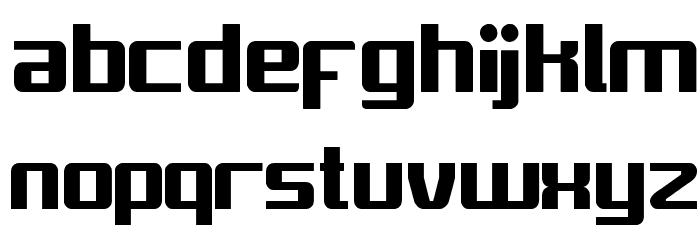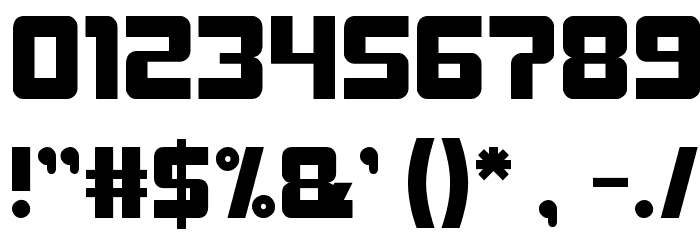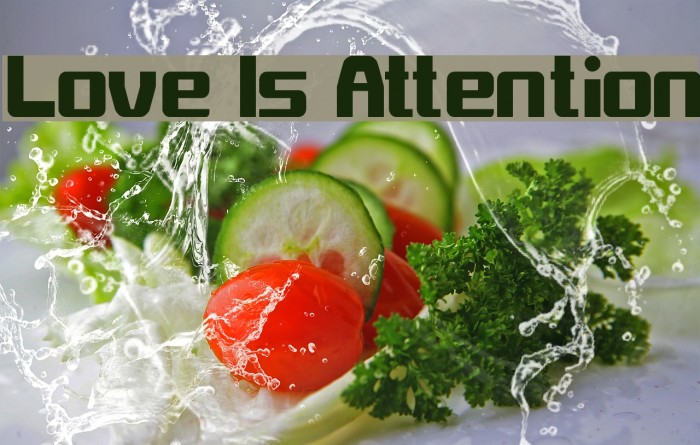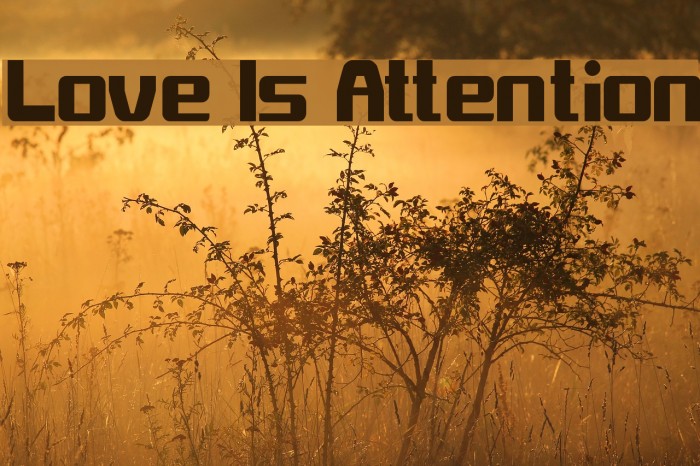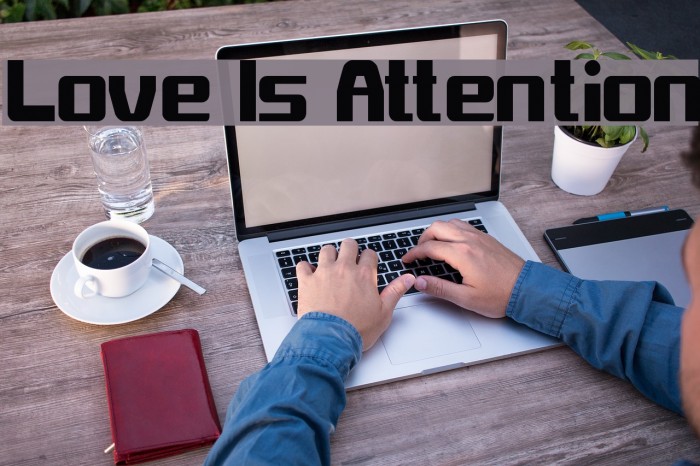
Love Is Attention Font
This font features a bold, geometric design with a modern and futuristic appeal. The characters are constructed with thick, uniform strokes, giving them a strong presence. The uppercase letters have a squared-off appearance with slightly rounded corners, while the lowercase letters maintain a consistent style, offering a cohesive look. The numerals are equally bold and geometric, ensuring readability and impact. Special characters are designed to match the overall aesthetic, making this font versatile for various applications.
- Proposed Projects: Ideal for branding, headlines, posters, and digital interfaces where a strong, modern look is desired.